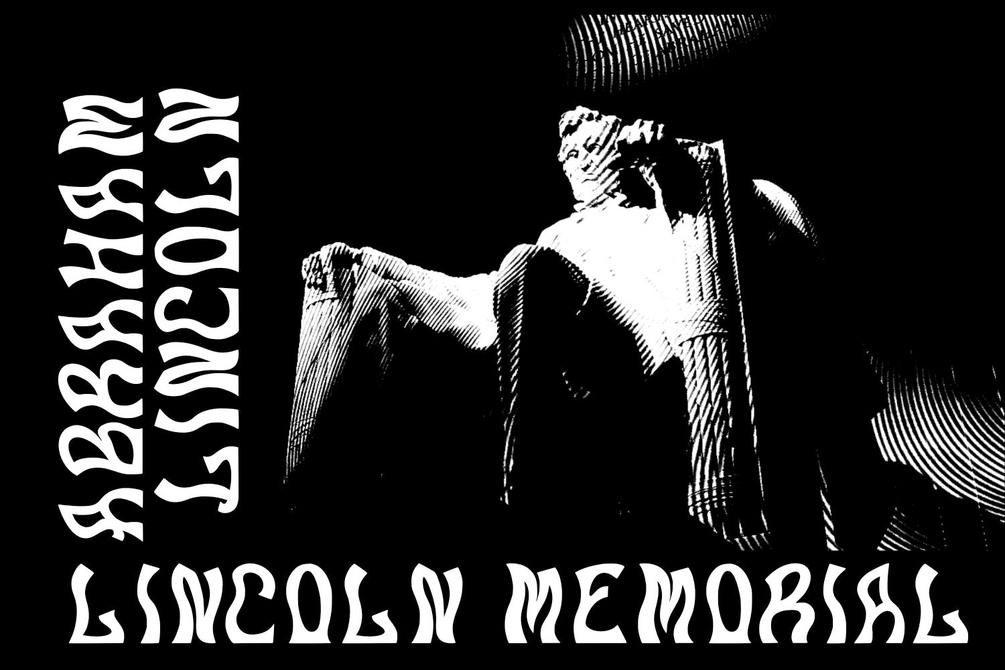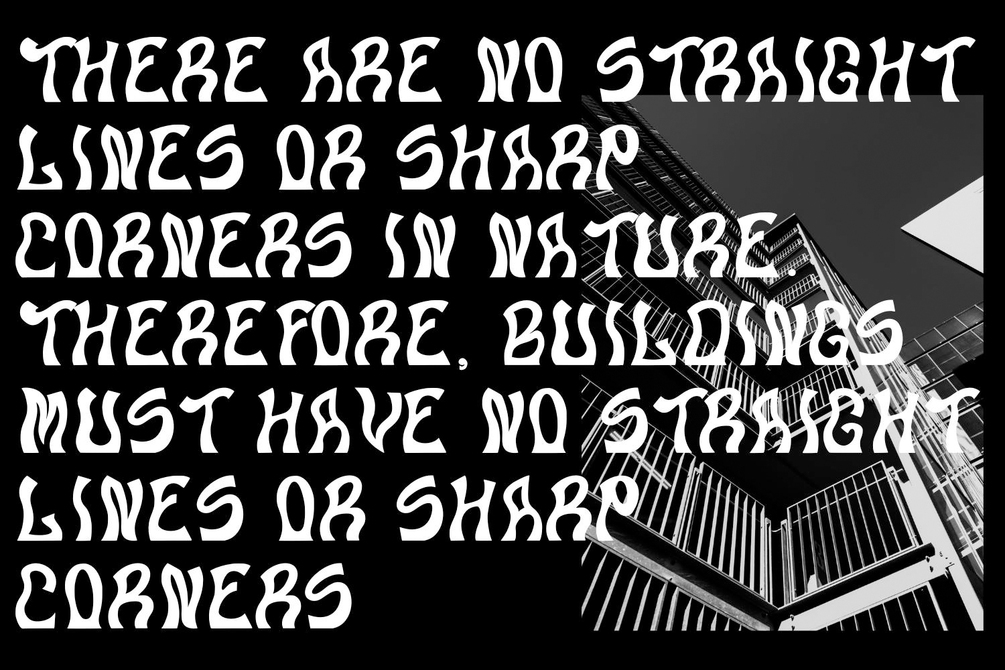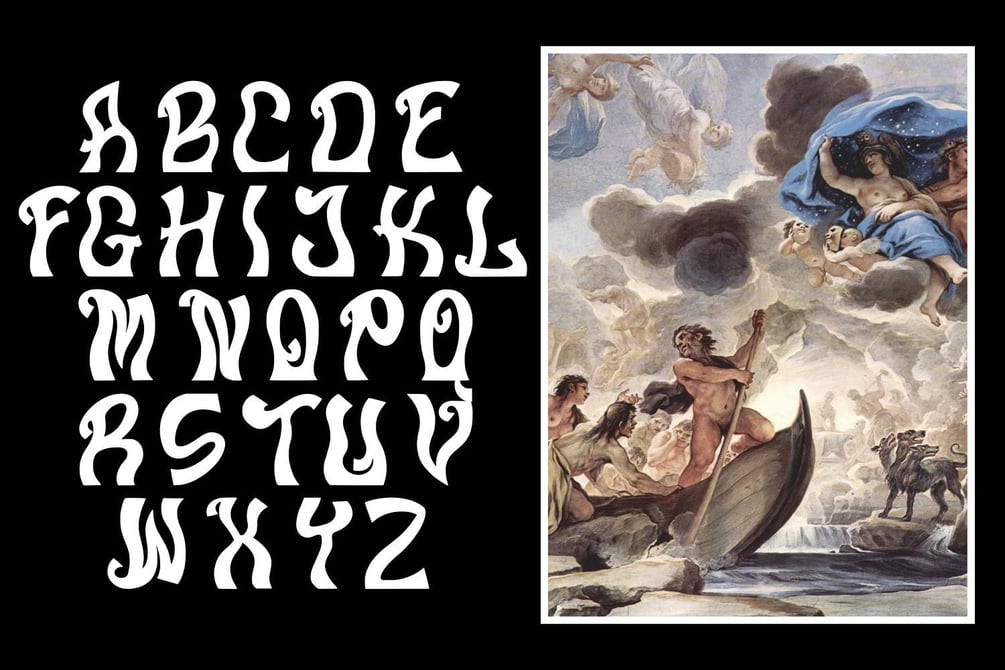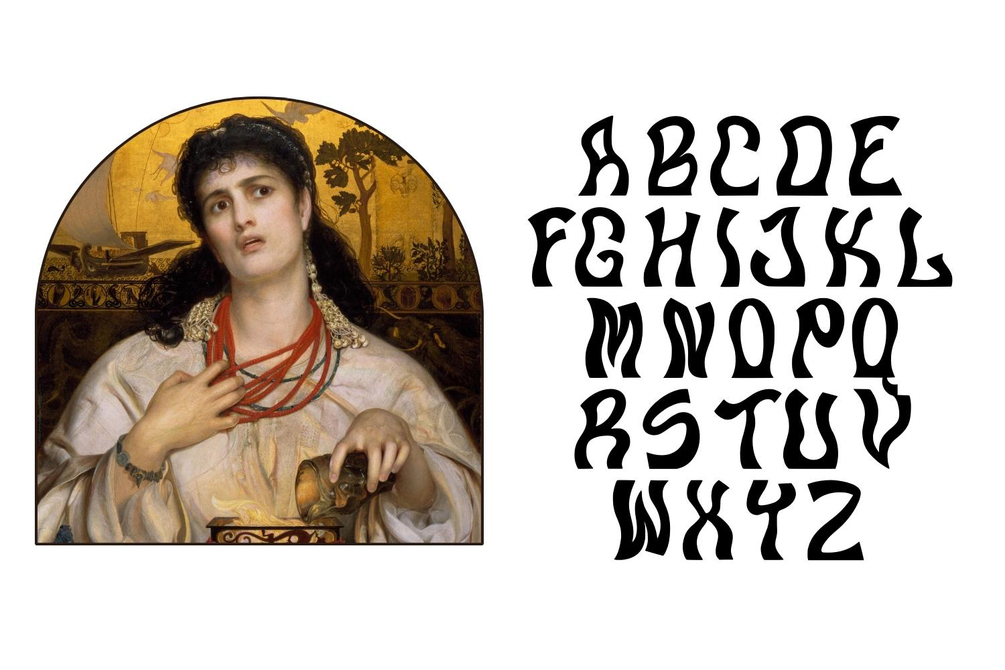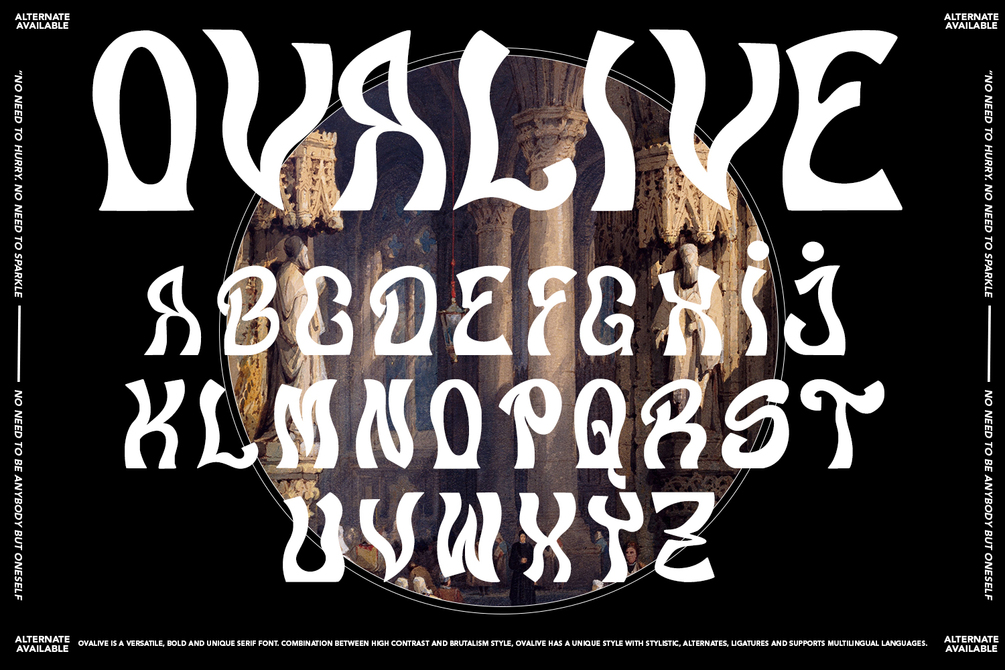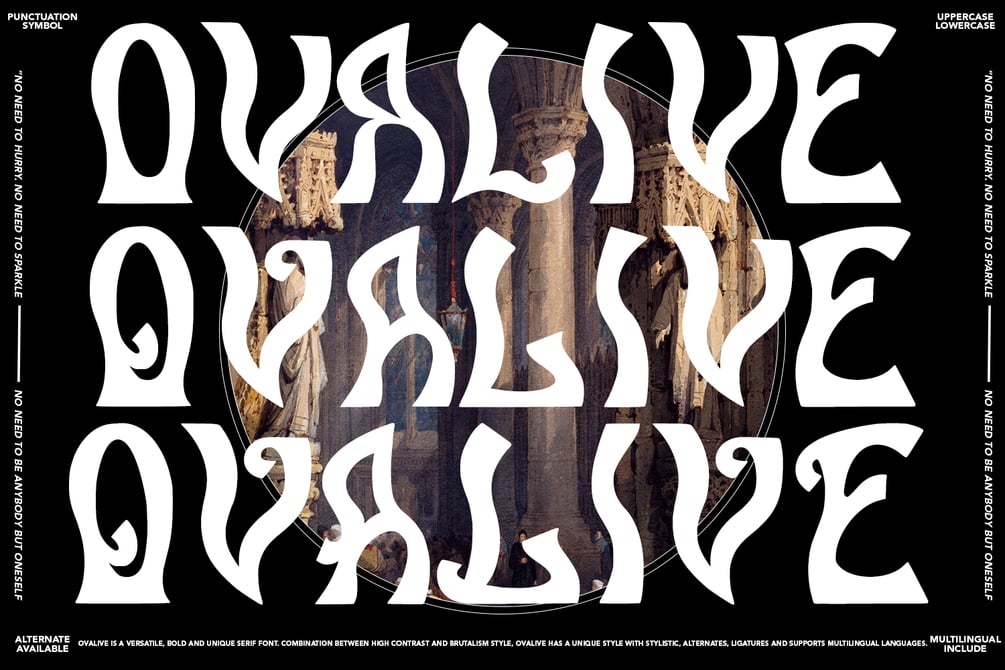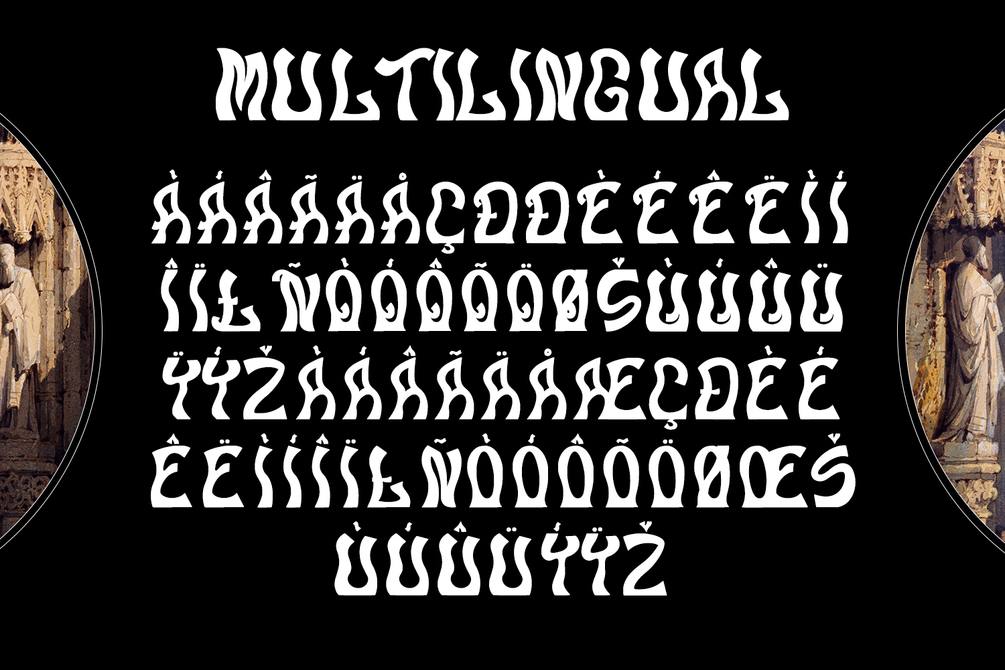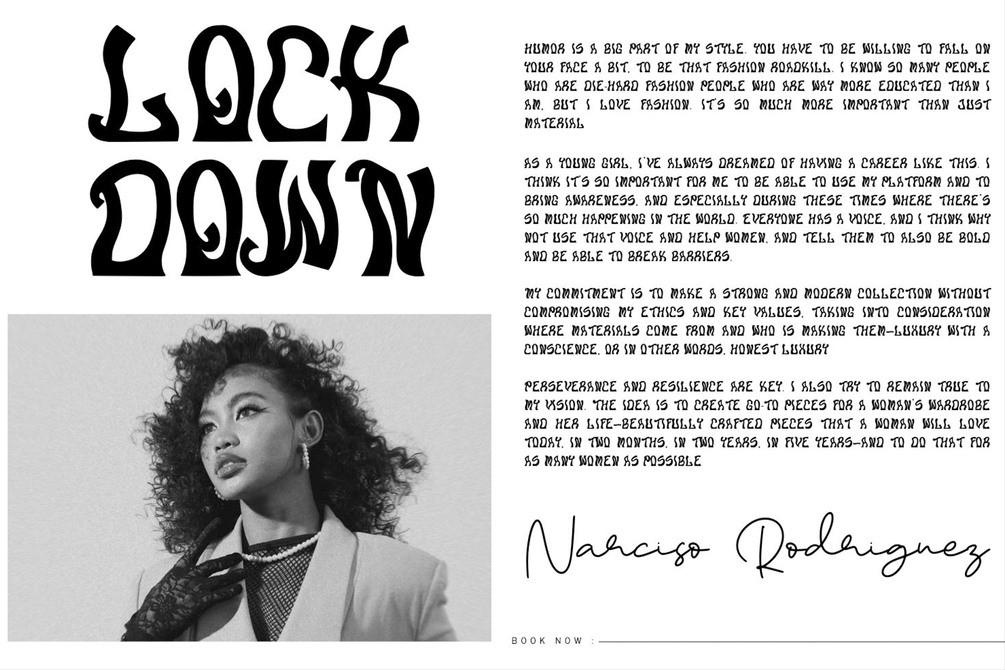
Ovalive - Display Font
ovalive is a versatile, bold and unique serif font. Combination between high contrast and Brutalism style, ovalive has a unique style with stylistic, alternates, ligatures and supports multilingual languages.